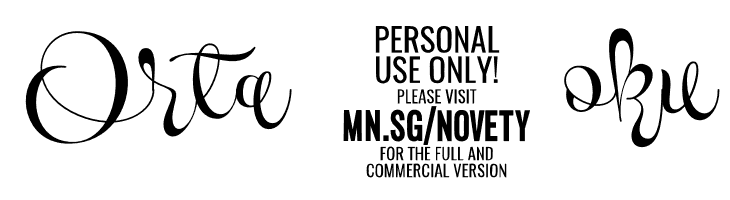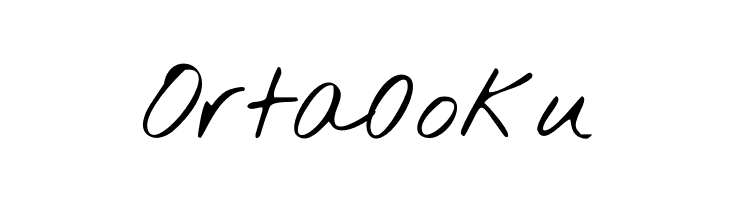
A casual, handwritten font with fluid strokes and a personal touch.
A dynamic script font with elegant curves and fluid strokes.
A dynamic script font with elegant, flowing curves and a slight slant.
A decorative script font with elegant, flowing lines and intricate loops.
An elegant and flowing script font with dynamic strokes and interconnected letters.
An elegant script font with flowing, interconnected characters and ornate flourishes.